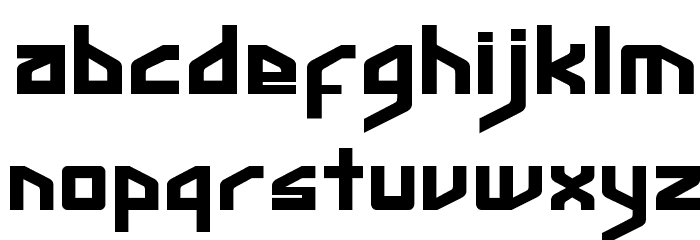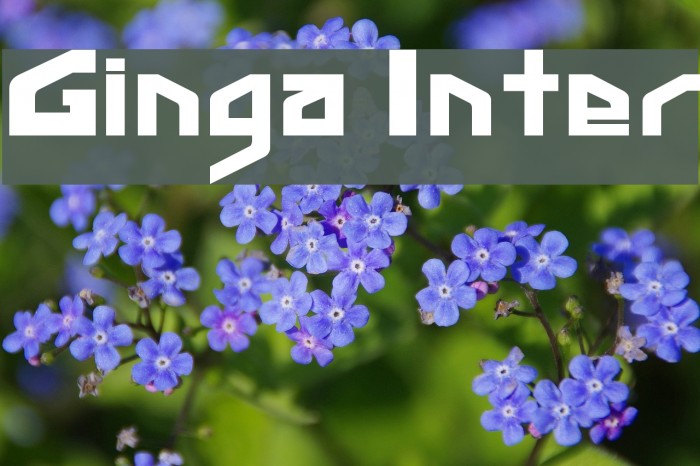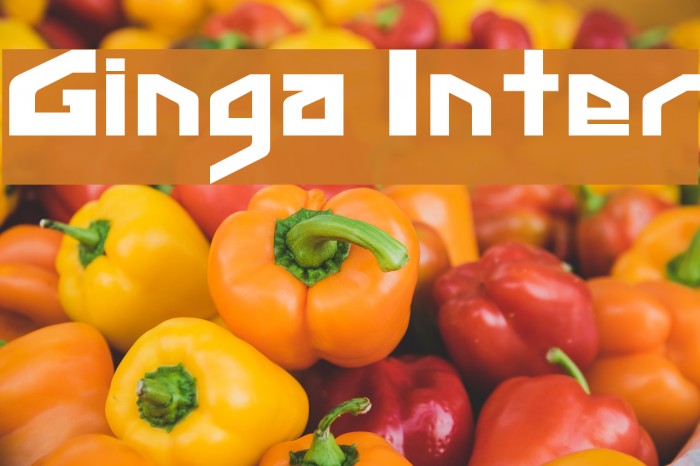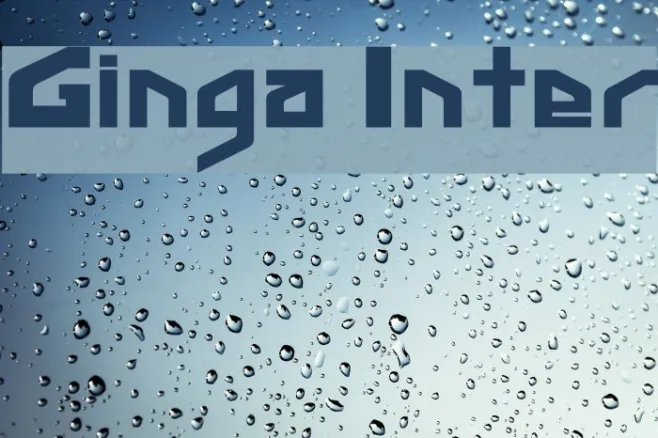
Ginga Inter Font
This font features a bold, geometric design with angular edges and a futuristic aesthetic. The uppercase letters are strikingly symmetrical, while the lowercase letters maintain a consistent style with slightly softer curves. Numbers and special characters are designed to match the boldness and angularity of the alphabet, creating a cohesive look. The font's strong presence makes it ideal for attention-grabbing designs. Its unique style is reminiscent of sci-fi themes, making it suitable for projects that require a modern and edgy appearance.
- Proposed Projects: Ideal for sci-fi themed posters, video game graphics, tech branding, and futuristic event flyers.